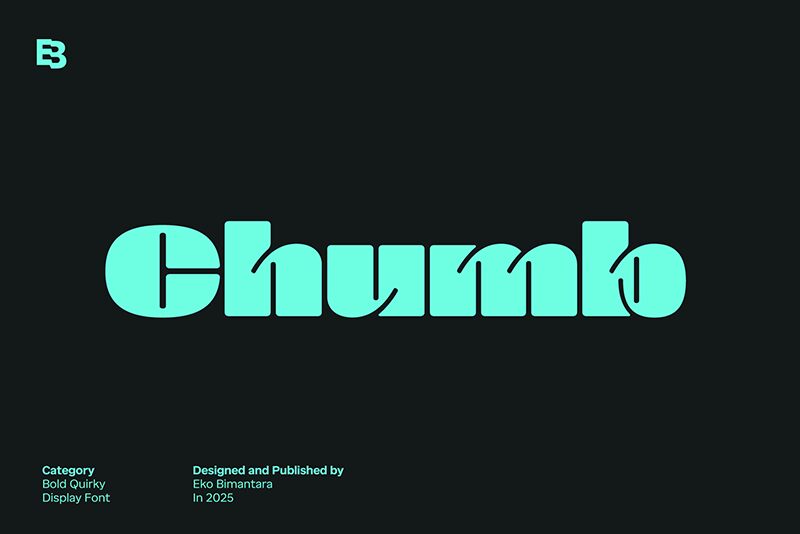
Chumb font by Eko Bimantara is a supreme expanded bold display typeface with a unique charm. Retro-inspired with geometric forms and a modern twist, the font makes for an unprecedented impactful presence in headers and titles. Be unique, be different, and take your projects to the next level using Chumb.
Apply this free display font in cover designs, packaging, branding, advertising materials like posters or flyers, or even intro and outro text animations in videos or websites. Many more ideas are also viable: cards, book covers or inner subtitles, magazine pages… The list goes on.